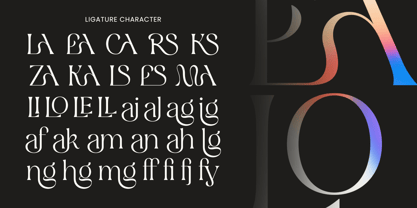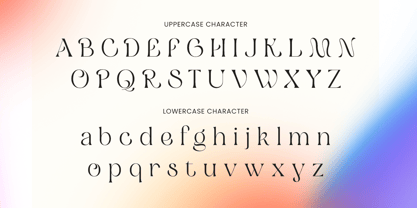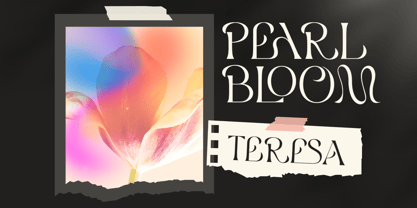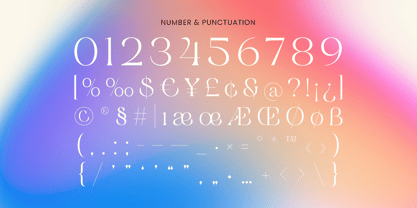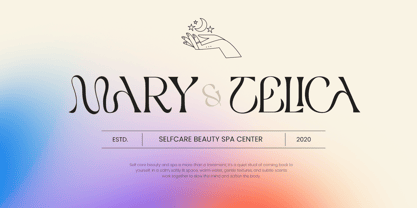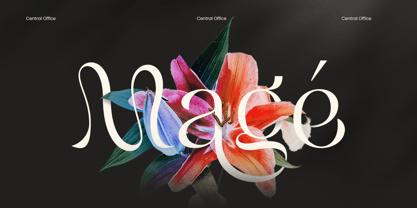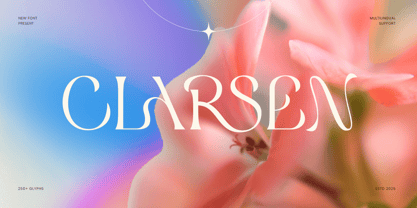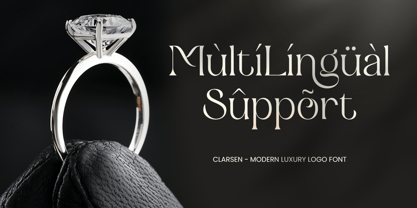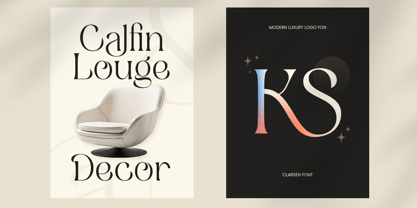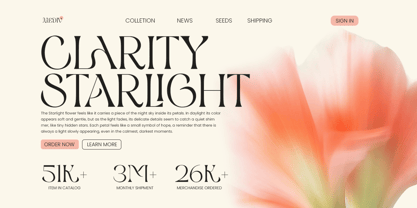
Clarsen
CLARSEN is a modern luxury logo serif font created to express elegance, confidence, and premium brand value. With refined serif details and a balanced modern structure, this typeface delivers a sophisticated tone that feels timeless, polished, and unmistakably high-end.
Designed for branding-led typography, CLARSEN works seamlessly across logos, wordmarks, boutique identities, editorial headlines, premium packaging, website headers, posters, signage, and social media visuals. Its elegant serif construction adds authority and class while maintaining excellent readability across digital and print applications.
Whether you’re building a luxury brand identity, crafting a premium logo, or designing refined editorial layouts, CLARSEN provides a strong serif presence that elevates your visual communication with modern sophistication.
Inspiration Behind CLARSEN
CLARSEN is inspired by modern luxury branding and classic editorial typography—where clean structure meets elegant detail. The font is designed to support premium logo systems and refined brand storytelling, helping brands communicate trust, quality, and timeless style through sophisticated serif design.
CLARSEN – Font Features
• Modern luxury serif letterforms with refined elegance
• Designed for logo design and premium branding systems
• Clean structure with strong display readability
• Uppercase, lowercase, numerals, and punctuation included
• OpenType features for polished professional typography
Perfect For
• Luxury logos and premium brand identity
• Fashion, beauty, and boutique branding
• Editorial headlines and magazine layouts
• Packaging, labels, and upscale product design
• Website headers, banners, and social media campaigns
Multilingual Support
Define refined luxury branding with CLARSEN—crafted for modern serif logos with timeless premium appeal. ✨